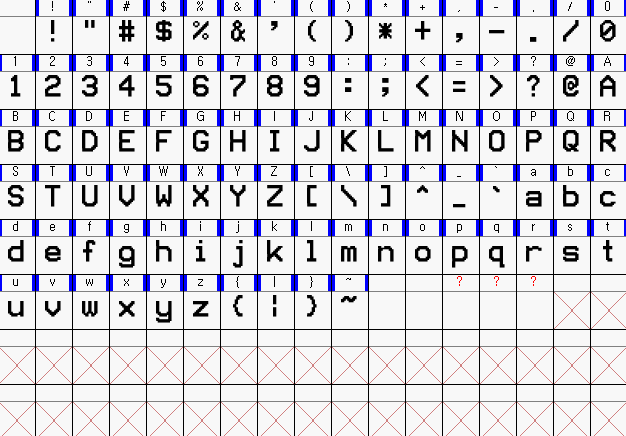
zBar-D
zBar-* series fonts are based on Zebra barcode label printer. The font format is TTF, which is convenient for users to print various labels. Note that the size of the font should be set to 8.5 or a multiple of 8.5 pt.
Contoh hasil cetak (pada label pengiriman):
Contoh hasil cetak:
Semua karakter font zBar-D:
Font zBar-D dilihat dengan penampil font bawaan Windows: